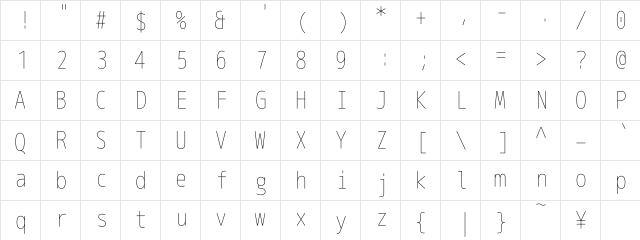
M+ 2m thin Font Preview
M+ 2m thin
Design Context for M+ 2m Typeface
M+ 2m takes a measured approach to typography — its balanced proportions and neutral character make it a reliable workhorse for both digital and print work. Its slender proportions lend an understated elegance to any composition.